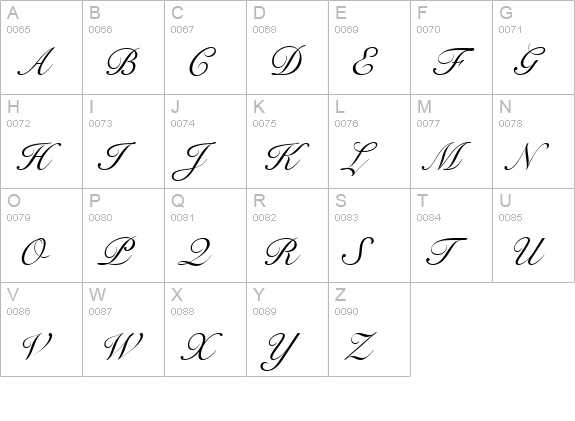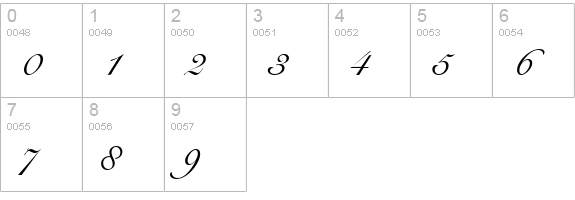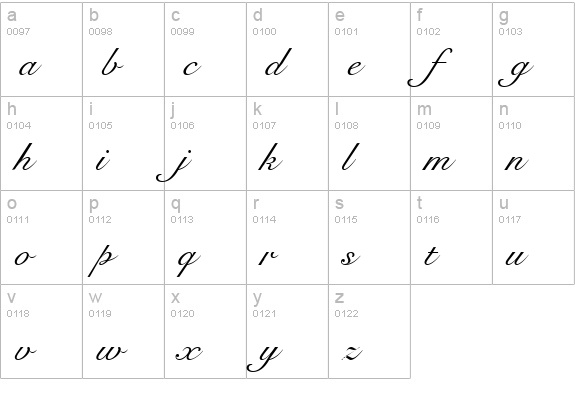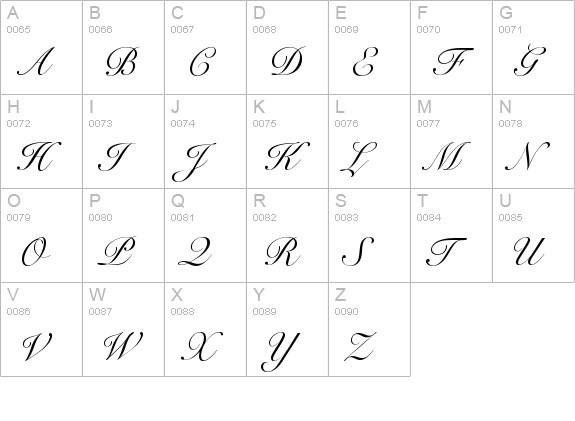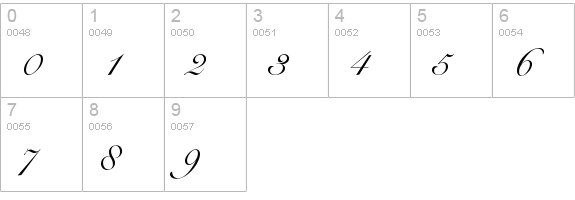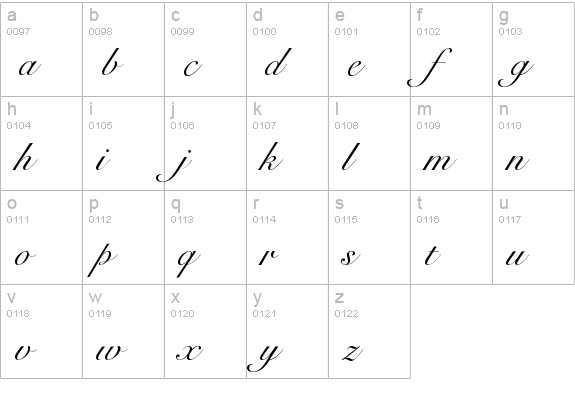
Snell BT is a stunning font that effortlessly combines elegance and modernity. With its sleek and sophisticated design, this typeface is perfect for a wide range of design projects, including branding, advertising, and packaging. The clean lines and well-defined shapes of Snell BT make it highly legible, ensuring that your message will be conveyed with clarity and impact. One of the most appealing aspects of Snell BT is that it is free to download. Yes, you read that right! This incredible font is freely available to download at FontsMarket.com. Now, you can enhance your creative projects without breaking the bank. Whether you're a professional designer or a hobbyist, Snell BT offers a versatile and high-quality typeface that will elevate your work to new heights. With its wide range of weights and styles, Snell BT provides endless possibilities for experimentation and customization. Whether you're looking for a bold and eye-catching headline or a subtle and refined body text, this font has got you covered. Its versatility and adaptability make it a valuable addition to any designer's toolkit. Snell BT is not only visually striking but also easy to work with. It is compatible with various design software and can be seamlessly integrated into your existing projects. The font's attention to detail and careful craftsmanship ensure that it will look fantastic at any size or resolution, ensuring a polished and professional result every time. So why wait? Take advantage of the incredible opportunity to download Snell BT for free at FontsMarket.com. Elevate your designs with this exceptional font and watch as your creations come to life with elegance and style. Don't miss out on this amazing offer – get Snell BT today and let your creativity shine!